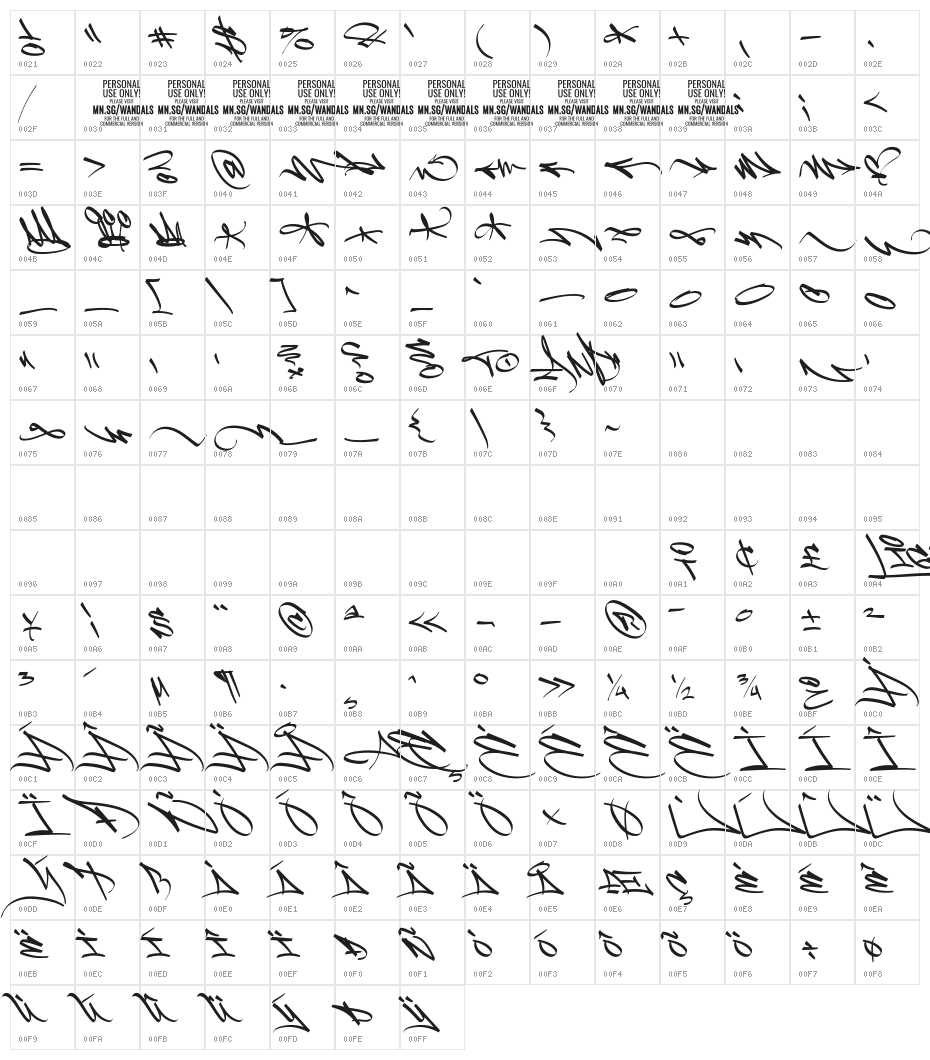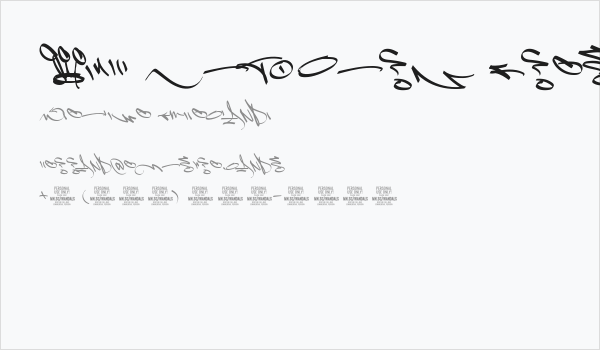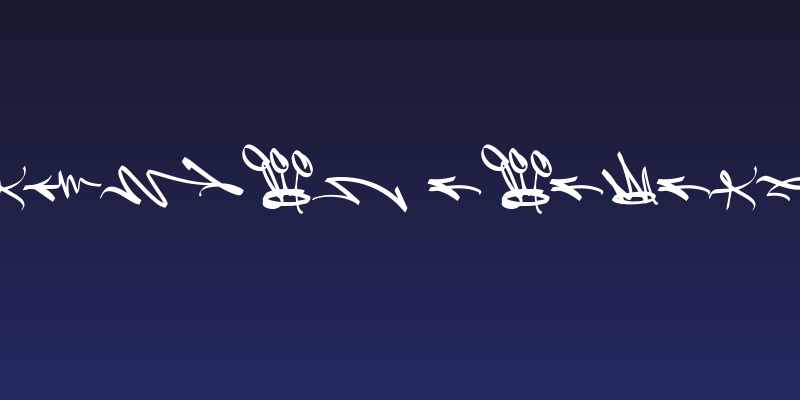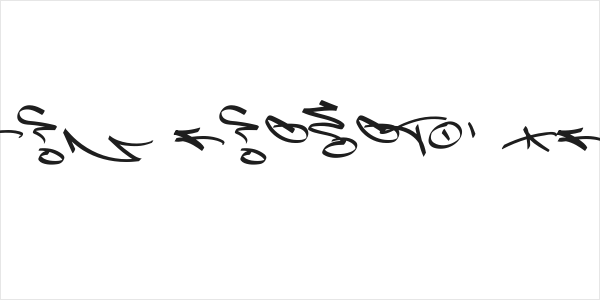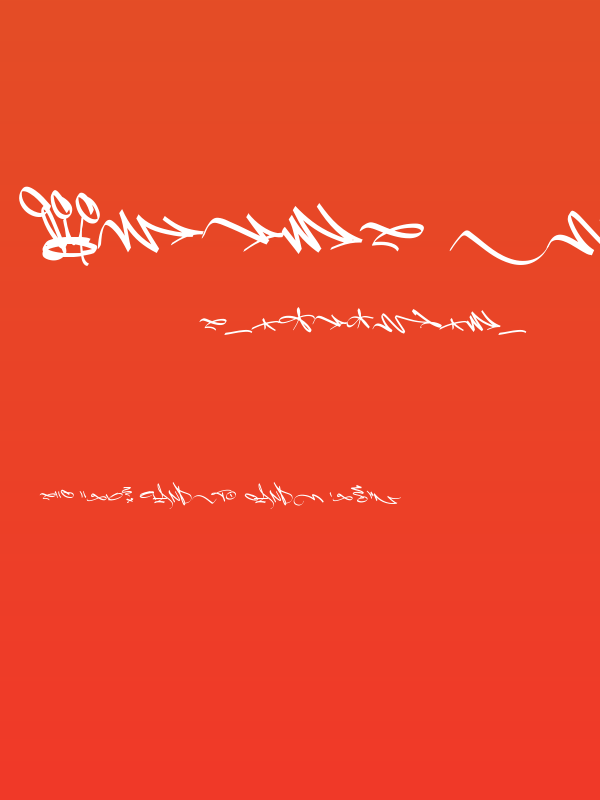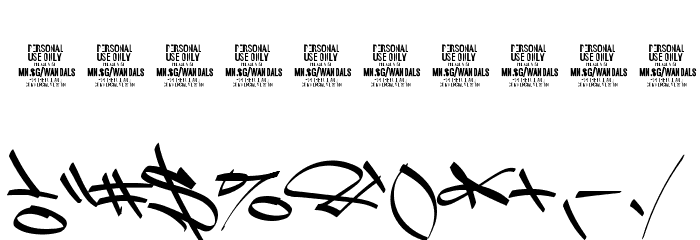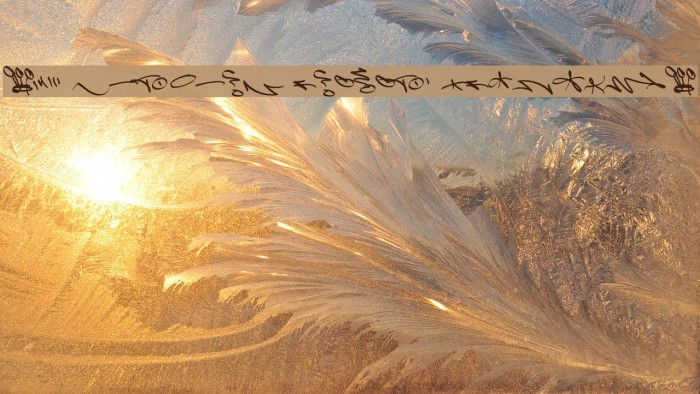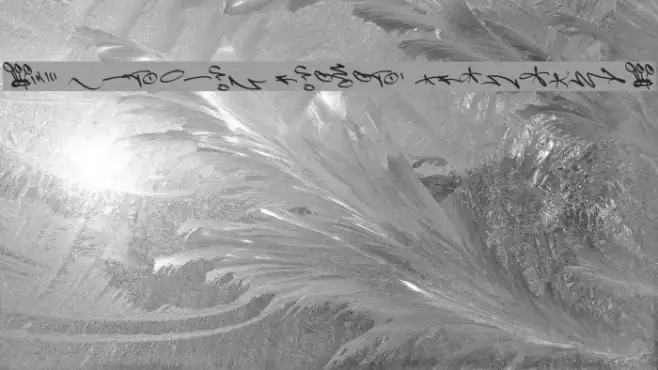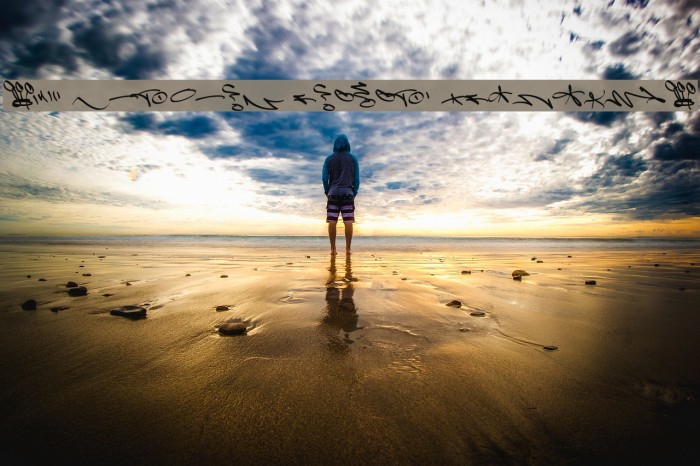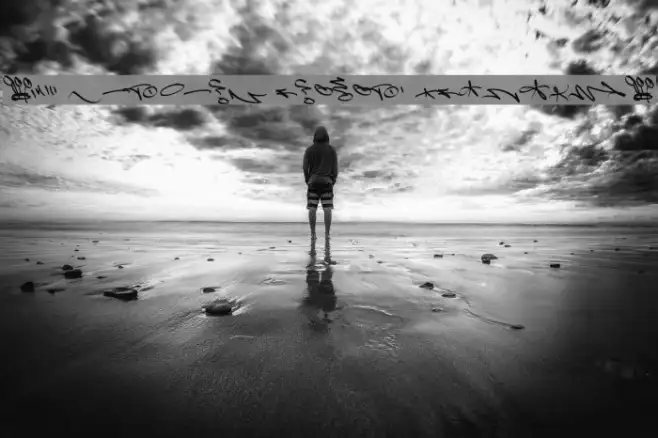
Light Wandals Element PERSONAL Font
Light Wandals Element PERSONAL Description
This font features a highly decorative and abstract style, characterized by its intricate and swirling letterforms. Each character is uniquely designed with elaborate curves and loops, creating a sense of movement and fluidity. The font's artistic nature makes it stand out, with each letter appearing almost like a piece of art rather than a traditional typeface. The strokes vary in thickness, adding to the dynamic and expressive quality of the font. Its unconventional design makes it suitable for creative and artistic projects where a bold statement is desired.
| Use Case | Logos, Posters, Artistic projects |
| Proposed Projects | Ideal for artistic projects, album covers, posters, and any design requiring a unique and expressive typeface. |